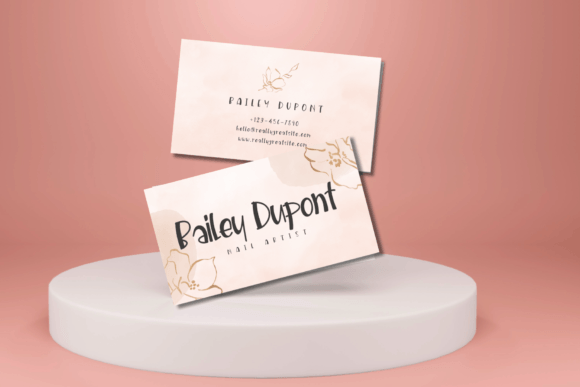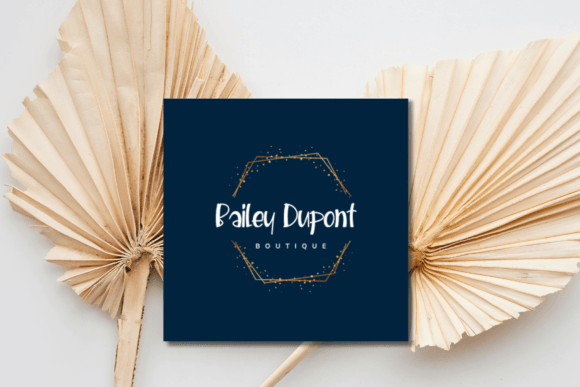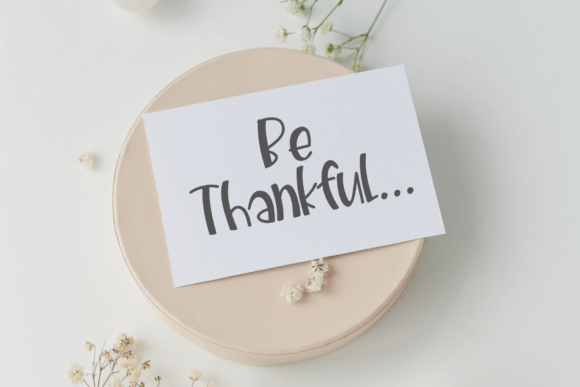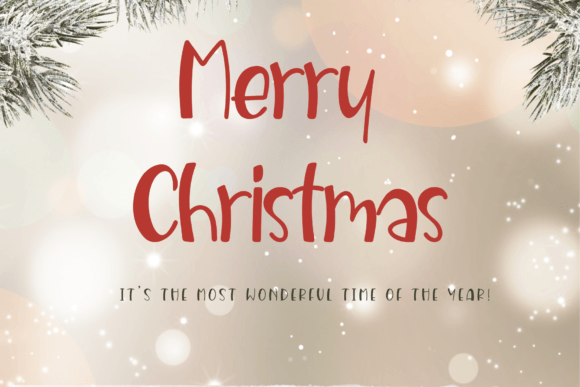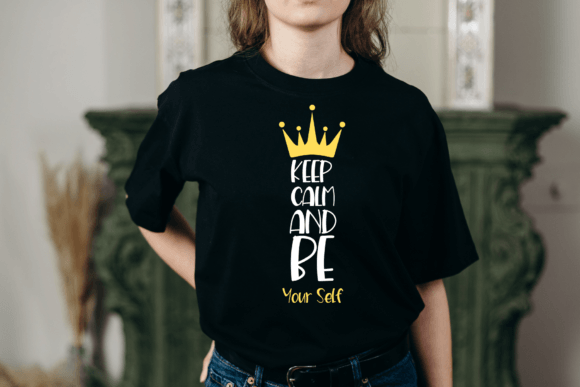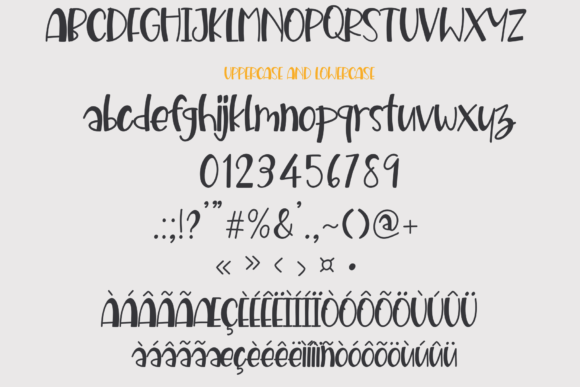
Introducing Bailey Font: Elevate Your Designs with Elegance and Class
Are you a designer or crafter looking for a font that can add a touch of sophistication and refinement to your projects? Look no further than Bailey Font, a friendly handwritten font that is perfect for a wide range of design applications. In this article, we’ll take a closer look at Bailey Font and explore its features, benefits, and uses.
What is Bailey Font?
Bailey Font is a beautiful, handwritten font that is designed to bring elegance and class to any design project. Its friendly and approachable style makes it perfect for a variety of applications, from logos and wedding designs to social media posts and product packaging.
Key Features of Bailey Font
- Handwritten style: Bailey Font has a warm, handwritten feel that adds a personal touch to any design.
- Elegant and classy: The font’s sophisticated style makes it perfect for high-end designs and luxury brands.
- Versatile: Bailey Font can be used for a wide range of design applications, from digital projects to print materials.
- Easy to read: The font’s clear and legible style ensures that your message is conveyed clearly and effectively.
Uses of Bailey Font
Bailey Font is a versatile font that can be used for a wide range of design projects, including:
- Logos: Create a professional and elegant logo for your business or brand.
- Wedding designs: Add a touch of sophistication and romance to your wedding invitations, stationery, and decorations.
- Social media posts: Elevate your social media presence with elegant and engaging posts.
- Advertisements: Create eye-catching ads that grab attention and convey your message effectively.
- Product packaging: Add a touch of luxury and sophistication to your product packaging.
- Product designs: Create beautiful and elegant product designs that stand out from the crowd.
- Labels: Design elegant and professional labels for your products or business.
- Photography: Add a touch of elegance to your photography with beautiful watermarks and overlays.
- Invitations: Create stunning invitations for special occasions, such as weddings, birthdays, and graduations.
- Stationery: Design elegant and professional stationery, including letterheads, business cards, and envelopes.
Benefits of Using Bailey Font
By using Bailey Font, you can:
- Elevate your brand: Add a touch of sophistication and elegance to your brand and designs.
- Stand out from the crowd: Create unique and eye-catching designs that grab attention.
- Convey your message effectively: The font’s clear and legible style ensures that your message is conveyed clearly and effectively.
- Save time: Bailey Font is easy to use and can save you time and effort in your design projects.
Bailey Font is a beautiful and versatile font that can add elegance and class to any design project. Its friendly and approachable style makes it perfect for a wide range of applications, from logos and wedding designs to social media posts and product packaging. With its key features, uses, and benefits, Bailey Font is an excellent choice for designers and crafters looking to elevate their designs and stand out from the crowd.